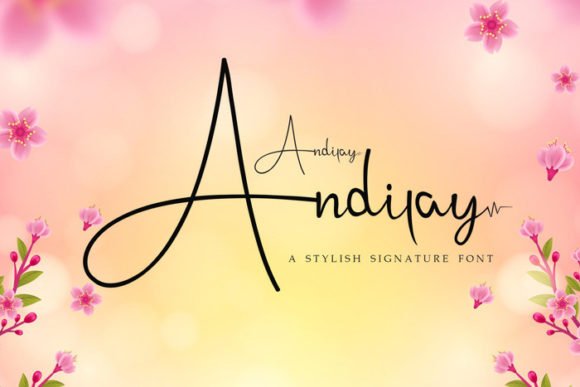
Discover the Timeless Elegance of Handwritten Fonts
Have you ever stumbled upon a quote or a phrase that sparks a creative idea, and suddenly you’re flooded with visions of beautiful typography and stunning designs? That’s exactly what happened to me when I first laid eyes on the Andilay Font. Its flowing, handwritten style is like a breath of fresh air, perfect for adding a personal touch to your designs.
Andilay Font is a beautifully crafted typeface that’s ideal for creating eye-catching logos, branding, and quotes. With its PUA encoding, you’ll have access to a wide range of glyphs and swashes that will take your designs to the next level. Whether you’re a seasoned designer or just starting out, Andilay Font is a valuable addition to your toolkit.
What sets Andilay Font apart from other fonts is its unique blend of elegance and playfulness, making it a versatile choice for any design project. So why not give it a try and see how it can elevate your designs to new heights?
Andilay Font Key Features
- Unique Characteristics: Andilay Font features a unique blend of modern and traditional elements, making it suitable for various design applications
- Font Style: Andilay Font is available in multiple styles, including Regular, Bold, Italic, and Bold Italic
Andilay Font Review
Overall, I think the Andilay Font is a decent option for digital designers, but it has its pros and cons. Let’s dive into the details.
- Beautiful, elegant script font style – perfect for creative, artistic projects
- Comes in a range of weights, from light to bold, giving users plenty of flexibility
- Good support for various languages, making it a great choice for international projects
- Not ideal for body text – the script style can be difficult to read in large blocks of text
- May not be suitable for digital signage or other applications where high readability is crucial
- Some users may find the font’s elegance comes at the cost of readability in certain situations
Overall, I think the Andilay Font is a great choice for designers who want to add a touch of elegance to their projects, but it’s not a one-size-fits-all solution. Use it wisely, and you’ll be happy with the results.
Andilay Font: A Practical Application Guide
Andilay Font is ideal for:
- Creating modern and sleek headings and titles.
- Adding a touch of elegance to body text.
- Designing minimalist and sophisticated logos and branding materials.
Tips for Getting the Most Out of Andilay Font
For the best results, use Andilay Font in conjunction with other modern and sleek fonts.
Use Andilay Font to create a consistent and cohesive visual
Alternatives to Andilay Font for Designers
Lato is a sans-serif font designed by Łukasz Dziedzic. It is a modern and clean font suitable for a wide range of designs, including corporate identities, advertising, and digital products. Lato is a great alternative to Andilay Font when you need a more minimalist and sophisticated look.
Comparison: While Andilay Font has a more rounded and friendly feel, Lato is more geometric and versatile. Lato is also more widely available and comes in a wider range of weights and styles.
Open Sans is a popular sans-serif font designed by Steve Matteson. It is a clean and highly legible font that is suitable for body text, headings, and titles. Open Sans is a great alternative to Andilay Font when you need a font that is easy to read and works well in a variety of contexts.
Comparison: While Andilay Font has a more elegant and refined feel, Open Sans is more modern and functional. Open Sans is also more widely available and comes in a wider range of weights and styles.